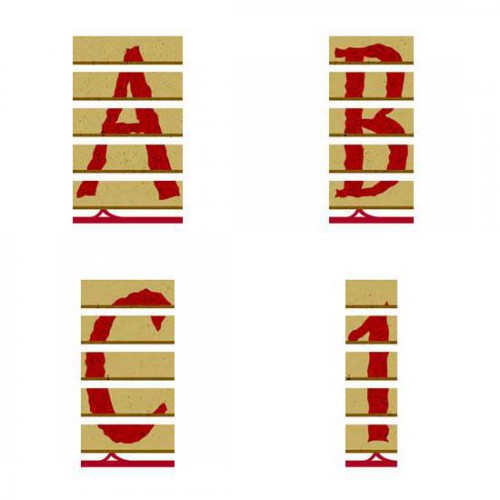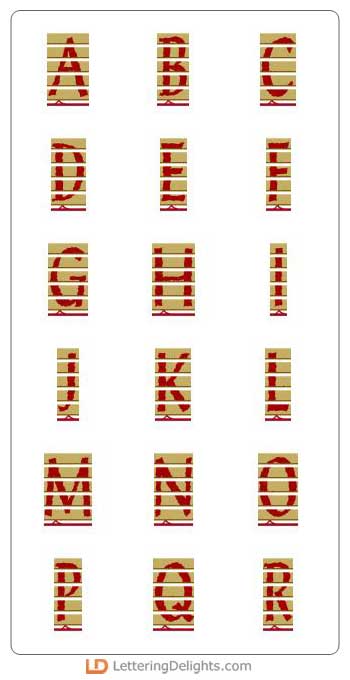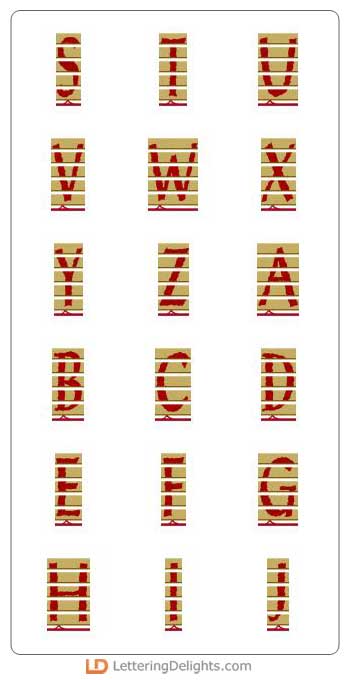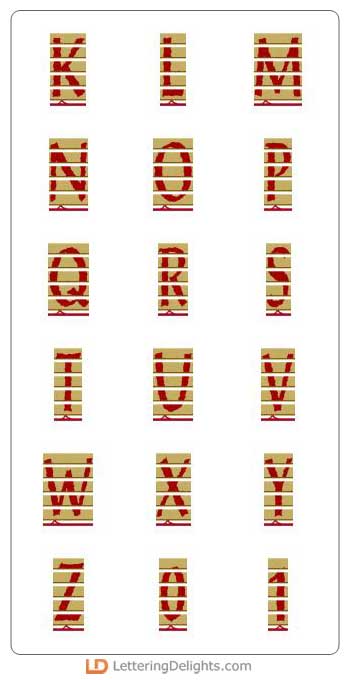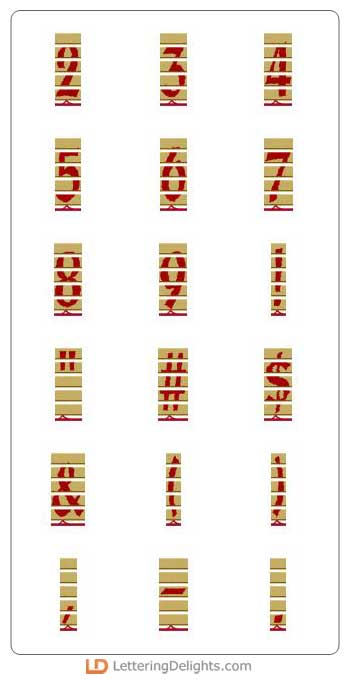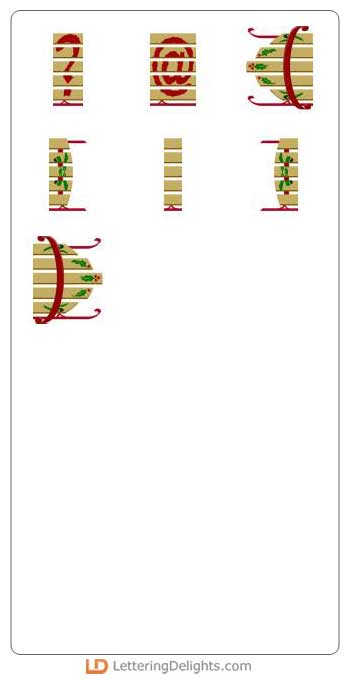
If love sledding, this alphabet is for you. Dress up your signs, flyers, invitiations or newsletters with these clever letters. Use the corresponding Journaling Delights set as well to give your scrapbooking layouts a holiday touch. Please note: These letters link together to make a sled. Use the [ & ] brackets for the beginning and ending of the sled. Use the _ (underscore) key to make a space between letters.